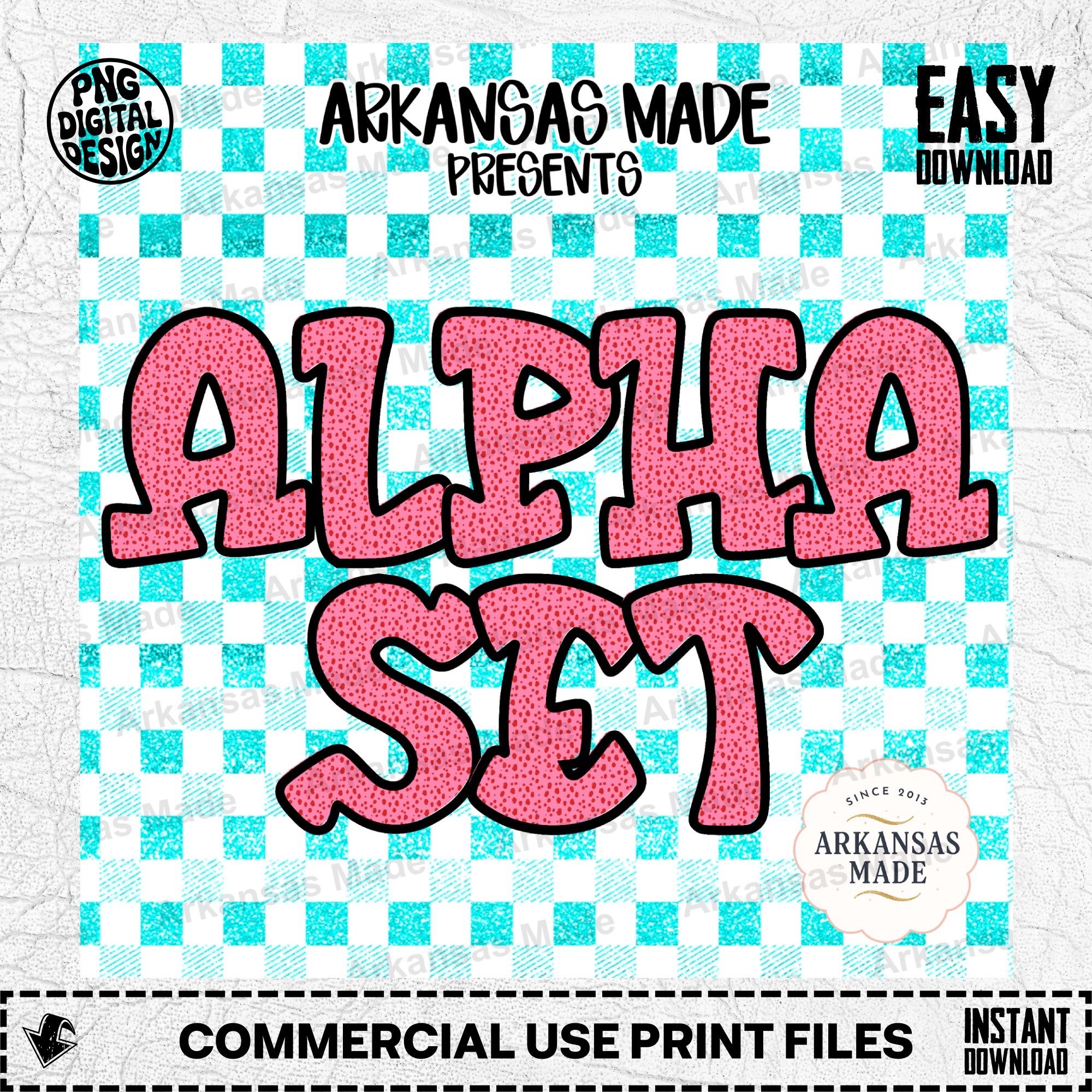
Pink Dotted Alpha Set PNG, Chunky Bubble Alphabet Font, Faux Sprinkle Letters, Digital Download PNG for Sublimation
Get creative with this vibrant Pink Dotted Alpha Set PNG! Perfect for crafters, this chunky bubble alphabet features a playful faux sprinkle effect. Unleash your imagination for unique t-shirt designs, personalized tumblers, or fun scrapbooking projects. This cute, bold letter font is ideal for DIY enthusiasts and small business owners looking for eye-catching digital assets to make their creations pop. Elevate any project with this sweet and whimsical full alphabet download.